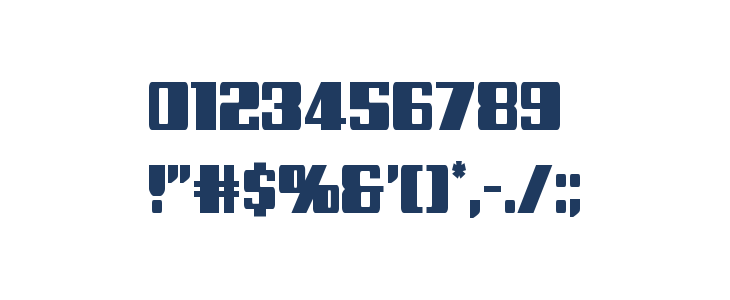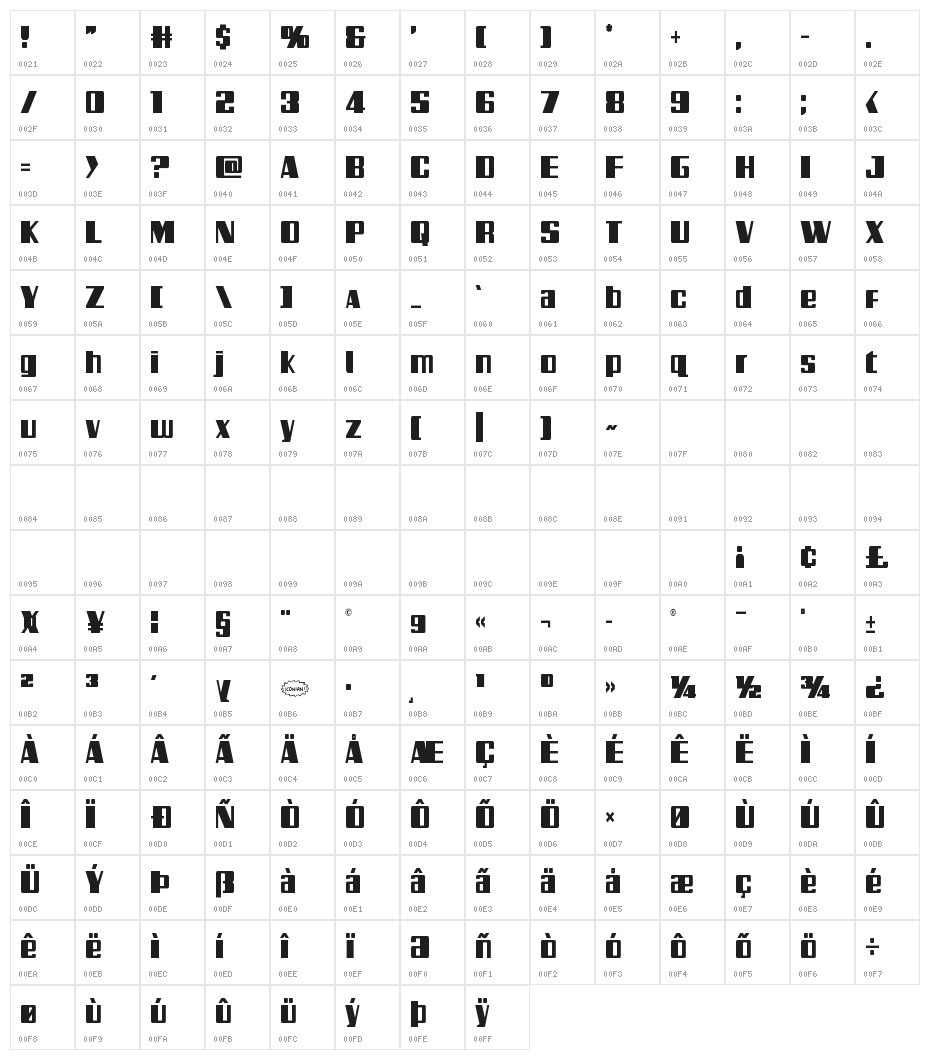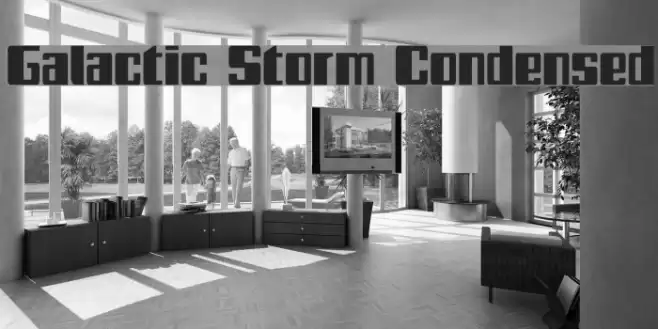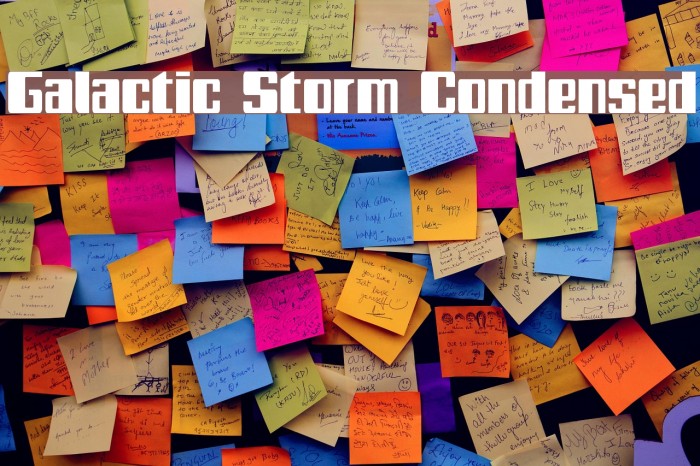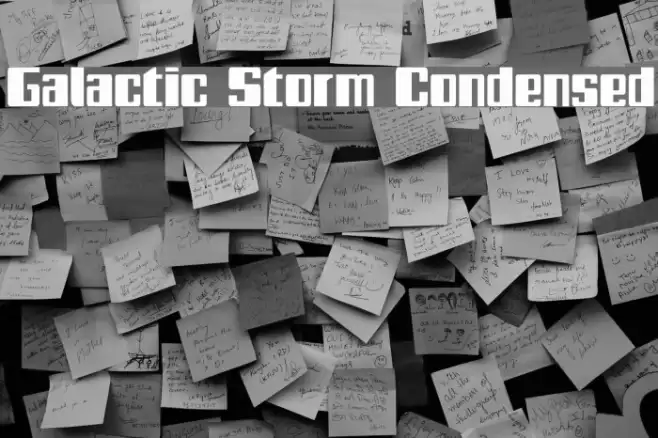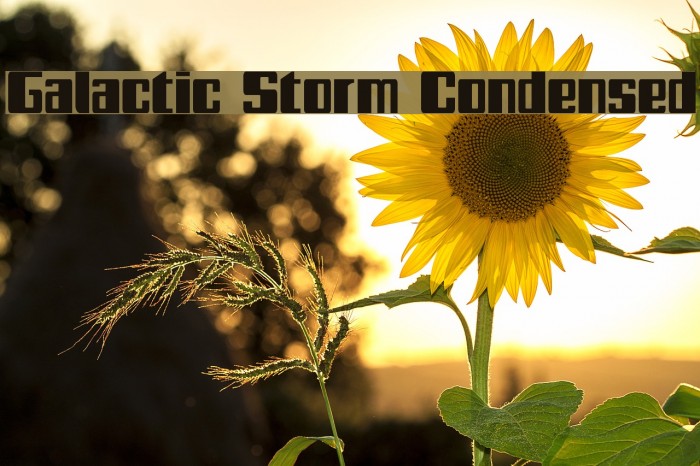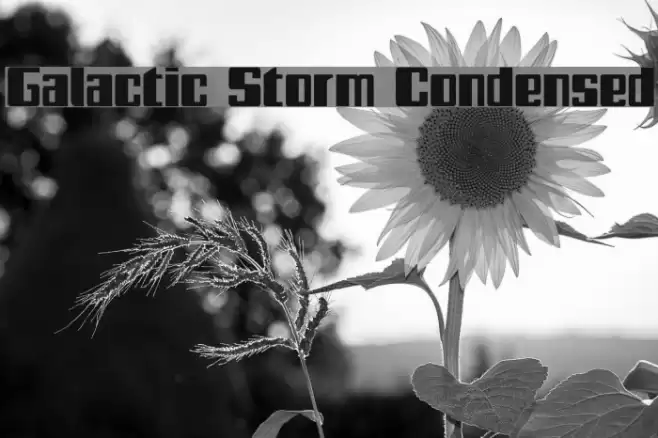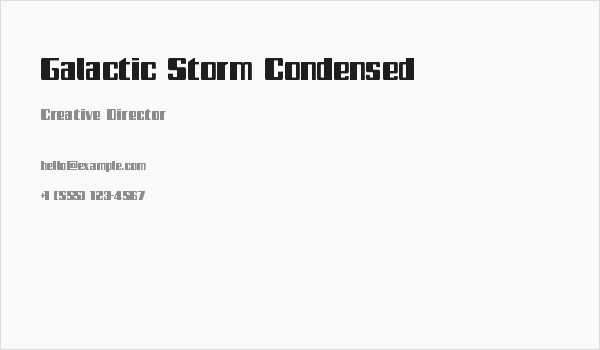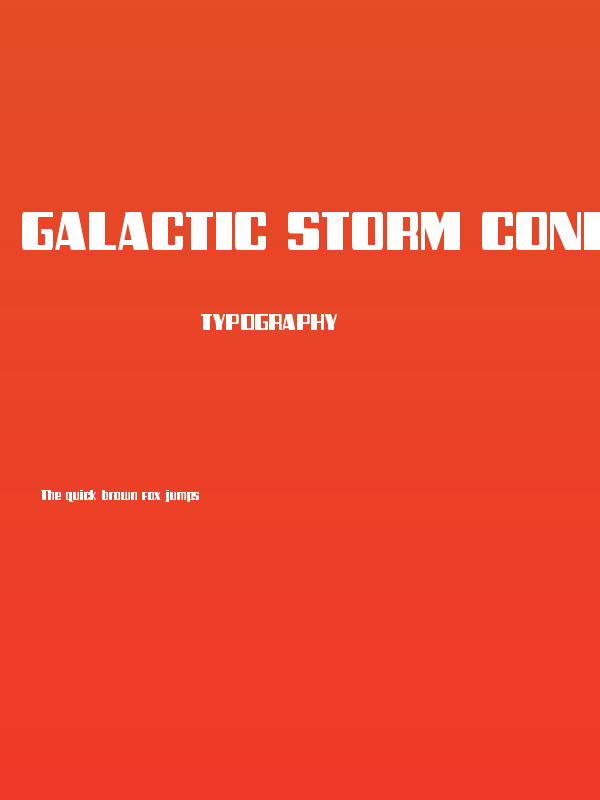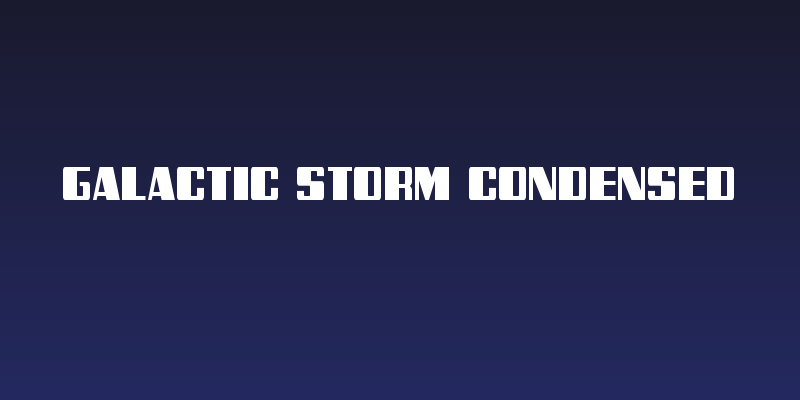
Galactic Storm Condensed Font
Galactic Storm Condensed Description
This font features a bold and impactful design with a condensed structure, making it ideal for creating a strong visual presence. The characters are uniformly thick, providing a consistent and robust appearance. The uppercase and lowercase letters maintain a geometric style, with sharp angles and clean lines. Numbers and special characters are designed to match the boldness and clarity of the alphabet, ensuring readability and aesthetic cohesion. The overall look is modern and dynamic, suitable for projects that require a futuristic or tech-inspired theme.